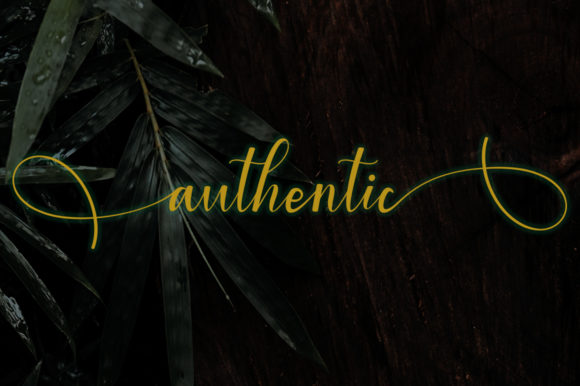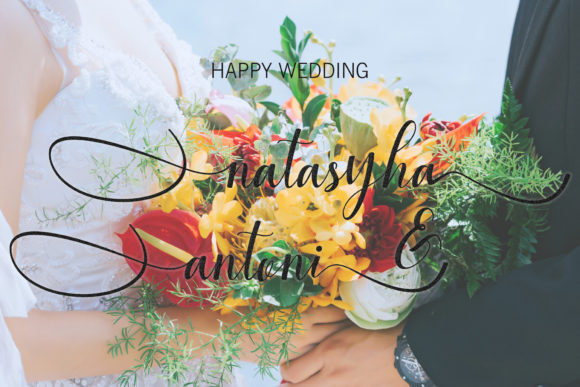
Williana
About Williana Font
Williana is a new fresh & modern script font with a handmade calligraphy style. This font is PUA encoded which means you can access all of the amazing glyphs and swashes with ease! It also features a wealth of special features including alternate glyphs and ligatures.